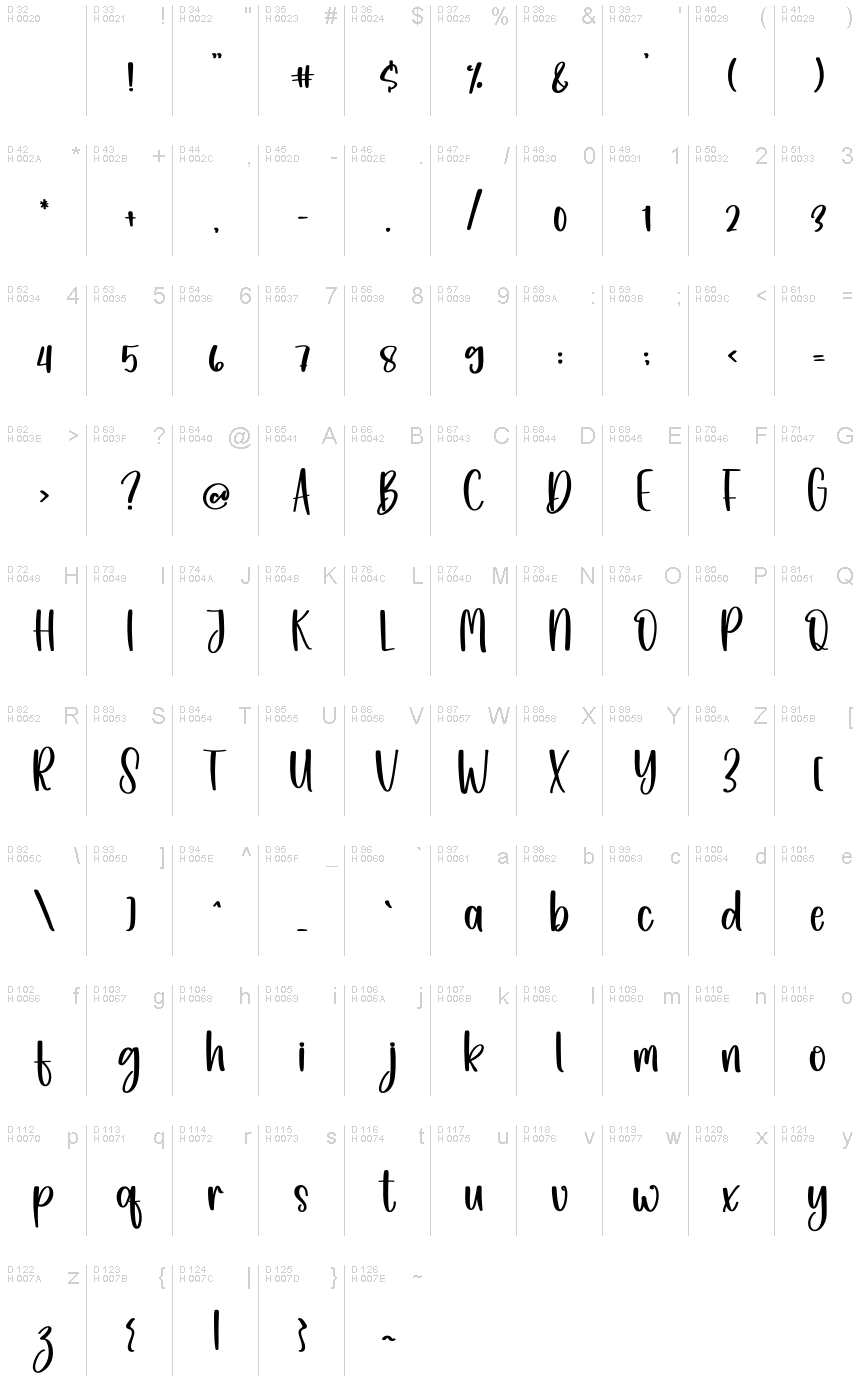
Day Of Christmas
Day of Christmas, a charming creation by Inermedia Studio, embodies the joy and warmth of the holiday season with its handwritten style. The semi-light weight of this font gives it an airy, approachable feel, while the condensed width ensures that every message penned is as cozy as a winter's hug. Its fluidity brings a personal touch to any project, simulating the intimacy of a handwritten note.
The Day of Christmas font is particularly captivating for its aesthetic that subtly balances casual elegance with festive flair. It flourishes in applications where a touch of intimacy is key—from holiday cards and invitations to seasonal marketing materials and personalized gifts. This font's nostalgic appeal makes it an excellent choice for those looking to evoke cherished holiday memories in their creative endeavors.